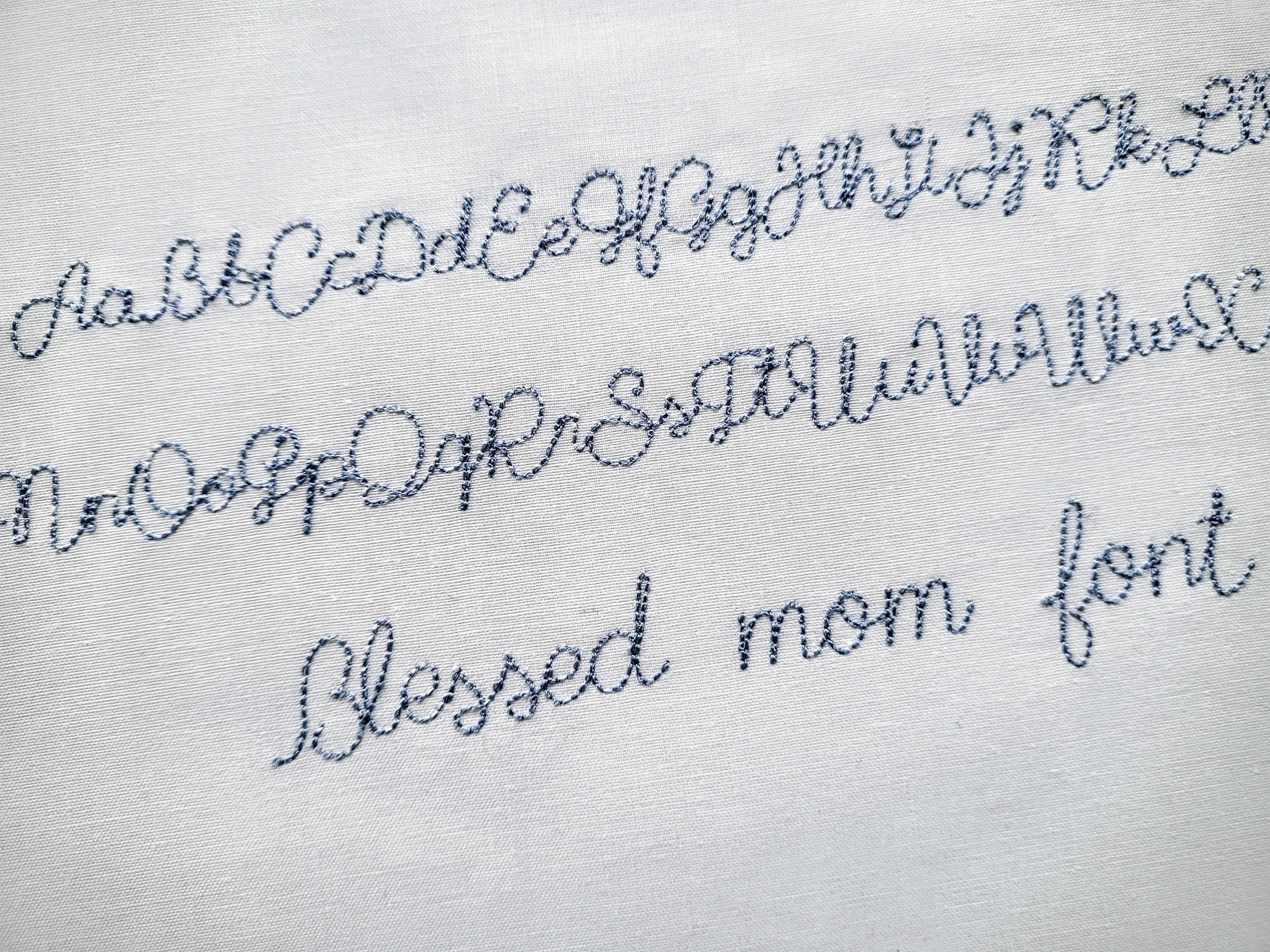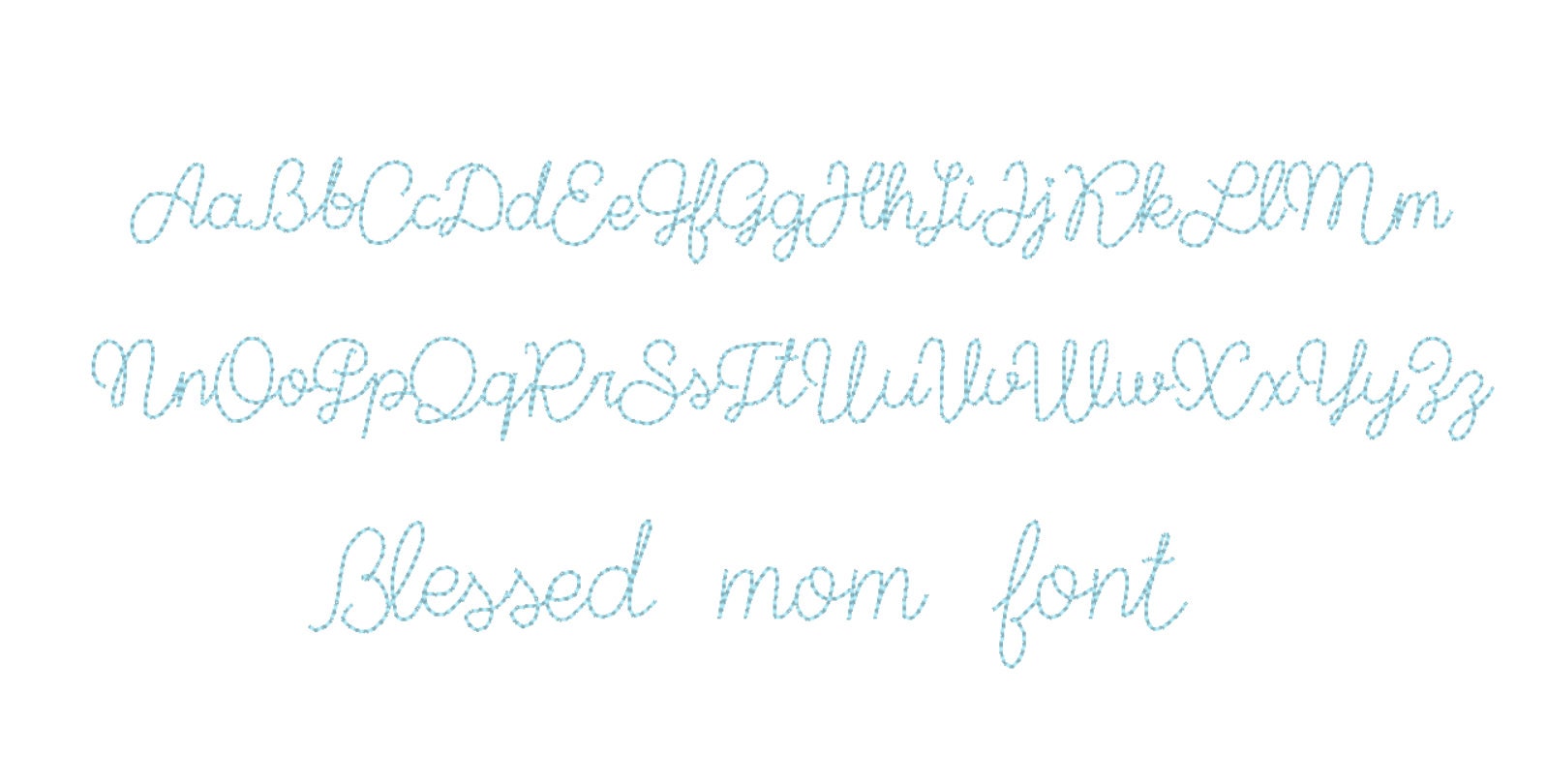
Handwriting Font, mini micro tiny alphabet letters in assorted sizes, line outline stitch machine embroidery designs versatile BX font
Whole alphabet A-Z, uppercase letters, lowercase letters and special punctuation & . # ?
Nice font, it stitched out beautifully
This is a beautiful font for quilt labeling stitched directly on the backing fabric! It is visible, yet elegant! It stitches smoothly. Will be my go to for any labels from this point forward!